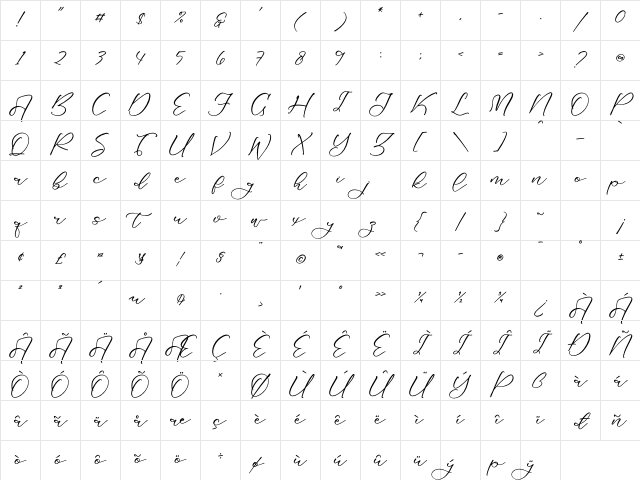
Complete Kerhatine Witckity Regular glyph index. Displaying only characters natively supported by Kerhatine Witckity Regular font.
Kerhatine Witckity is a composed and adaptable typeface that performs quietly and consistently across a wide range of design contexts.